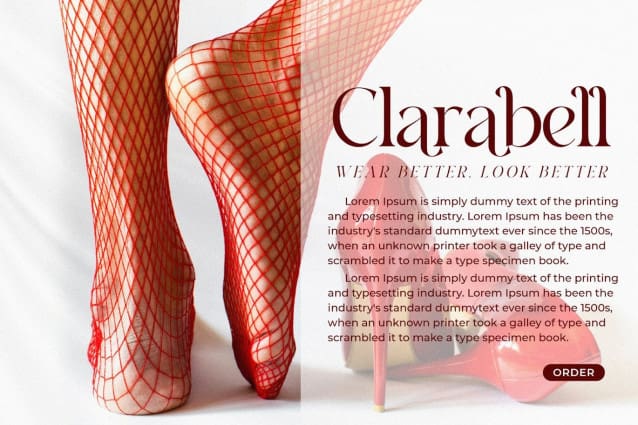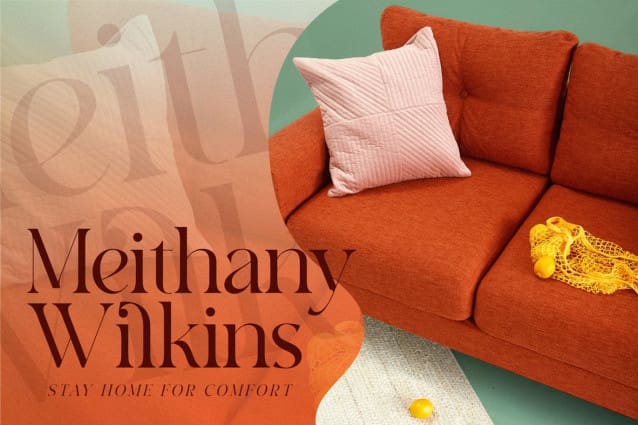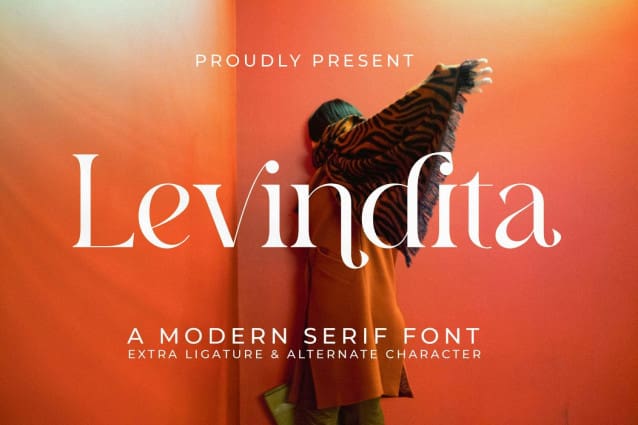
Levindita Font
Levindita Font – A Modern Serif Font, from Jeritype Studio, is a premium A Modern Serif font, perfect for any project requiring a distinctive, high-end touch.